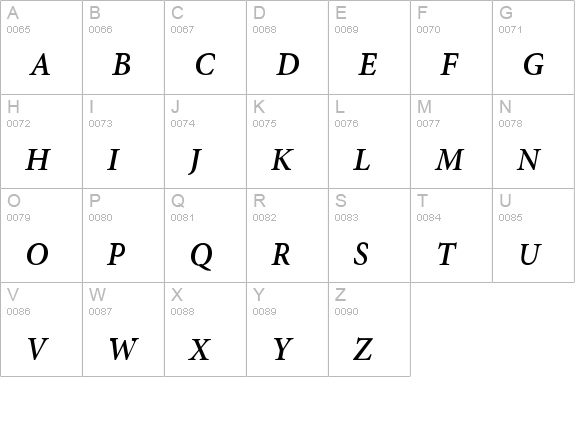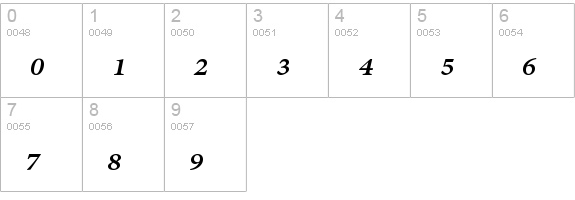
Adobe Thai Bold Italic Font Details
Adobe Thai Bold Italic is a strong, high-contrast, italic variant in the Adobe typeface family \xE2\x80\x94 well suited to headlines, attention-grabbing titles, and strong calls-to-action.
The Adobe Thai Bold Italic font is a stunning and versatile typeface that exudes elegance and sophistication. Its bold and slanted design adds a touch of flair to any project, making it perfect for headings, titles, and other design elements that require a bold statement. The intricate details and graceful curves of this font make it a standout choice for any design project that requires a touch of Thai influence. And the best part? The Adobe Thai Bold Italic font is available for free download at FontsMarket.com. You can easily access this beautiful font and incorporate it into your designs to add a unique and eye-catching element. Whether you're working on a branding project, a poster design, or any other creative endeavor, the Adobe Thai Bold Italic font is sure to make a lasting impression. Download this font today and take your designs to the next level!